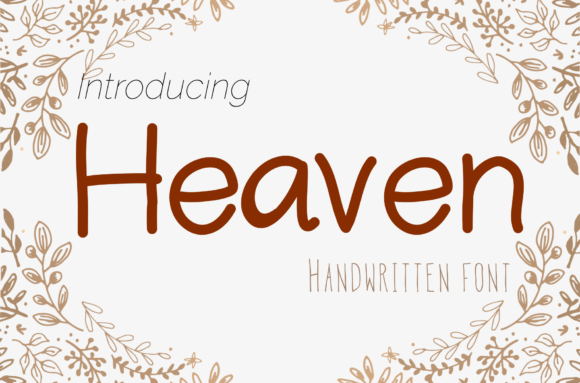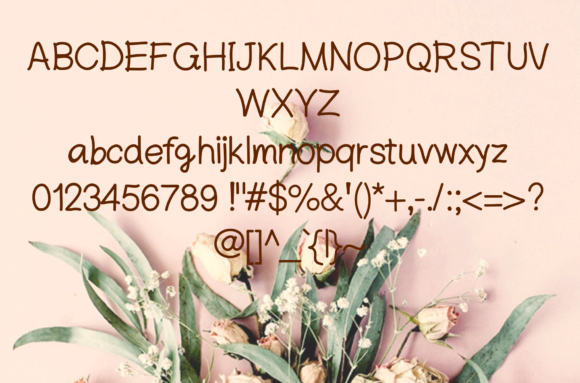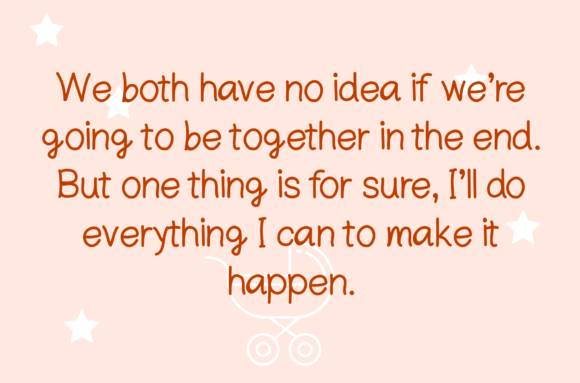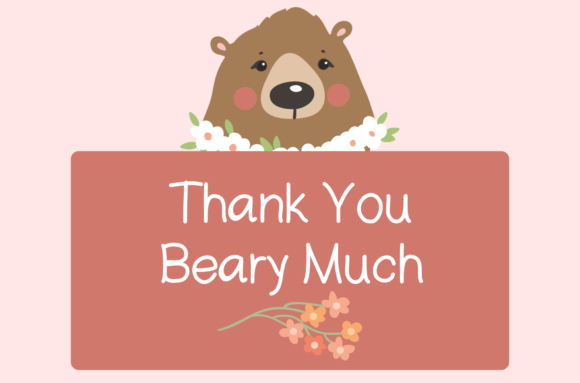
Heaven Font
About Heaven Font
Heaven is a sweet and natural handwritten font. Its friendly feel makes this font incredibly versatile, fitting a wide range of contexts. Add it to your creative ideas and notice how it makes them stand out!